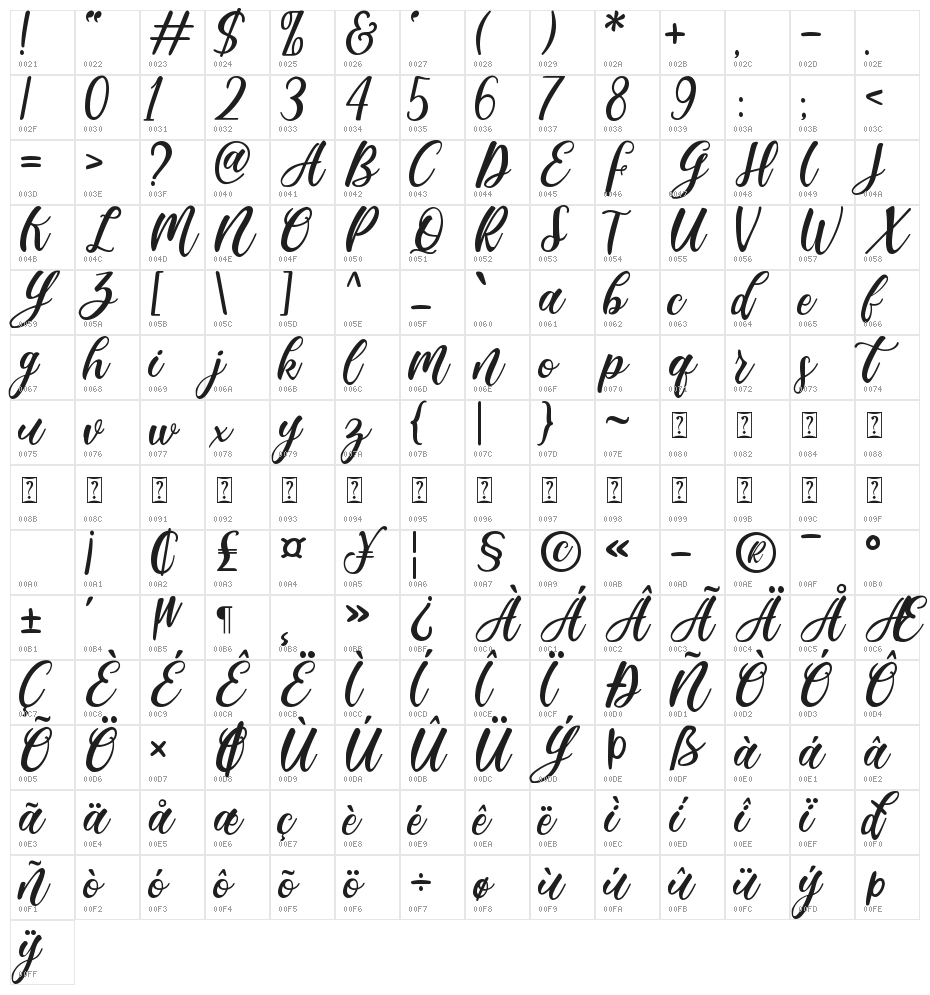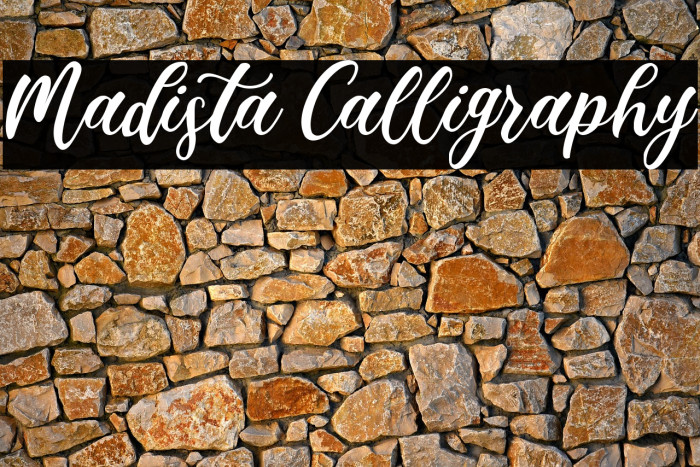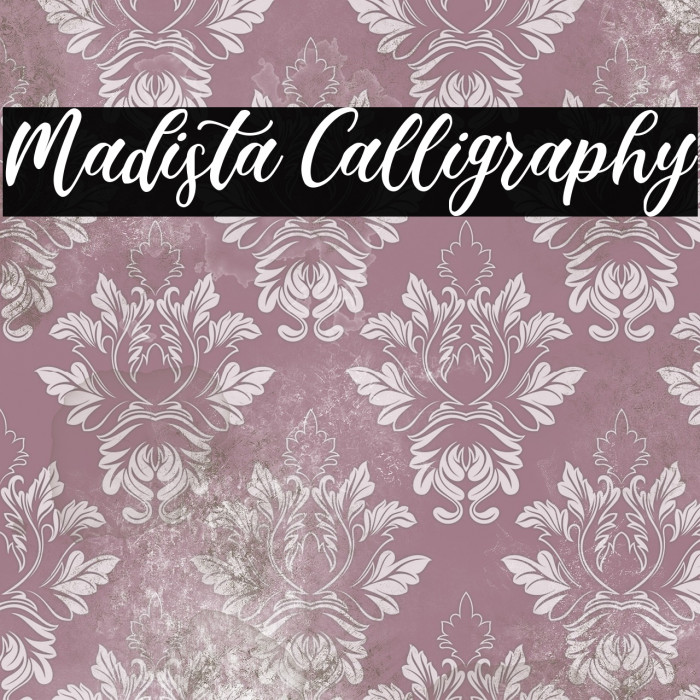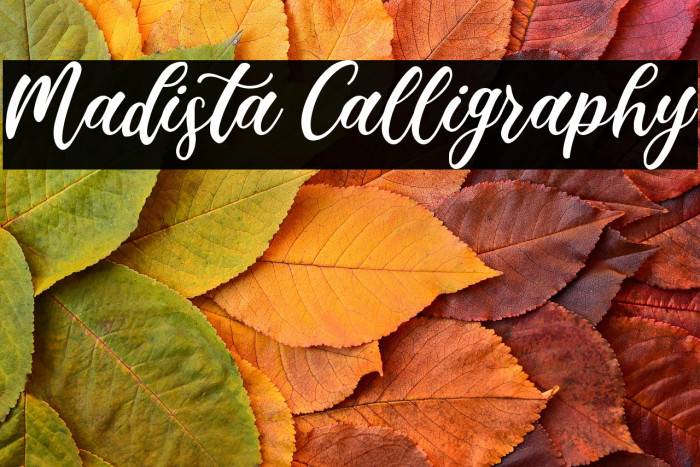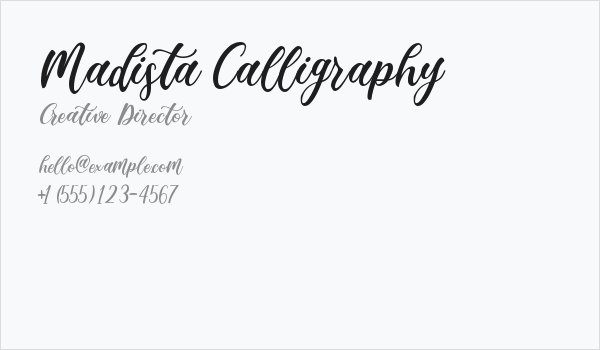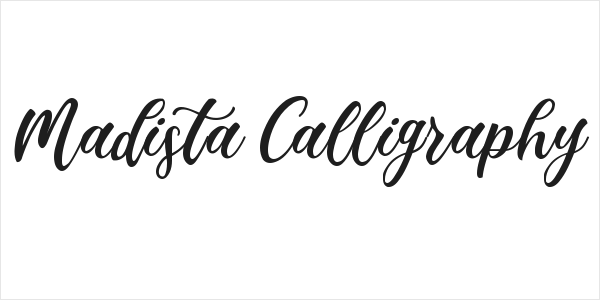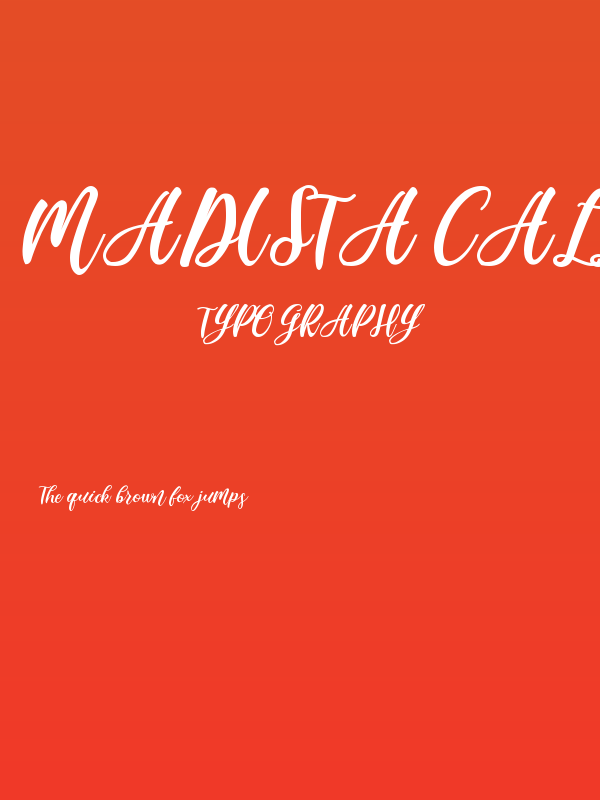
Madista Calligraphy Font
Madista Calligraphy Description
This elegant script font features a flowing, calligraphic style with smooth, sweeping curves and a graceful, handwritten appearance. The uppercase letters are bold and expressive, with distinctive flourishes that add a touch of sophistication. The lowercase letters maintain a consistent fluidity, enhancing readability while preserving the artistic flair. The numerals are stylish and complement the overall aesthetic, making them suitable for various design contexts. Special characters are thoughtfully designed to match the font's elegant theme, ensuring a cohesive look across all text elements. This font exudes a sense of elegance and creativity, perfect for projects that require a personal and artistic touch.
Overall StyleElegant, Artistic
Use CaseLogos, Invitations, Greeting Cards
Proposed ProjectsIdeal for wedding invitations, greeting cards, branding, logos, and any project that seeks a personal, artistic touch.